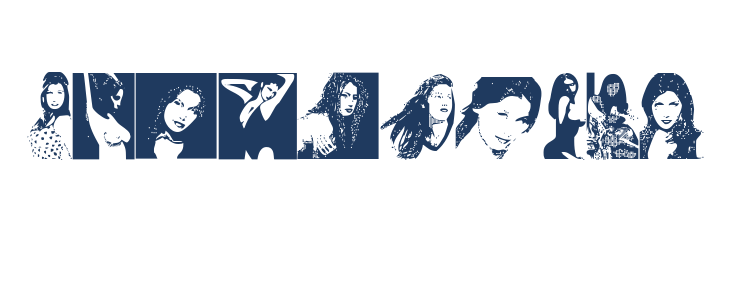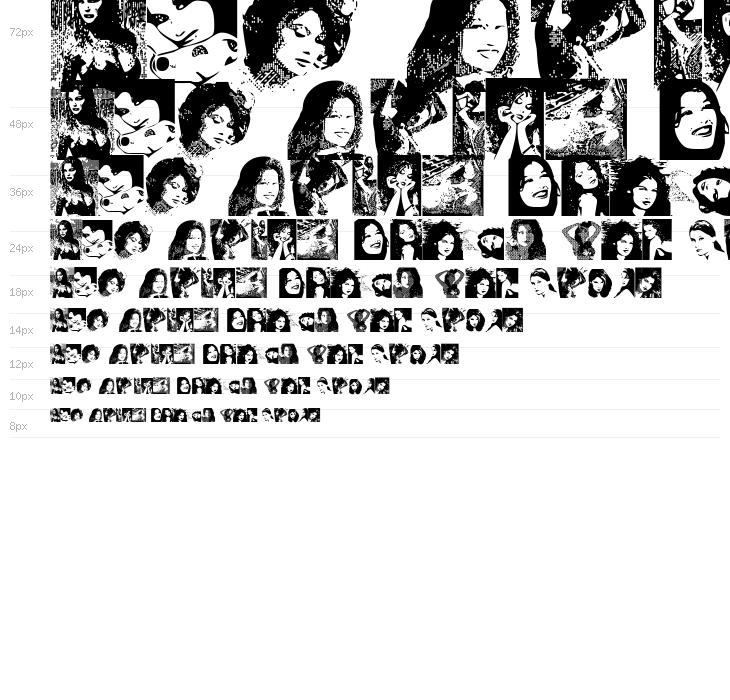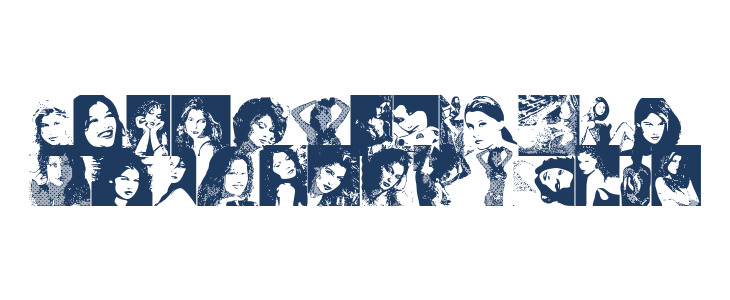
LaetitiaBats2 Font
LaetitiaBats2 Description
This font is a highly decorative and artistic typeface that incorporates photographic images within each character. Each letter is uniquely designed with a black and white photo, creating a striking visual effect. The font is bold and eye-catching, making it suitable for projects that require a strong visual impact. The characters are tightly spaced, enhancing the cohesive look of the text. This font is not suitable for body text due to its complex design but excels in creative and artistic applications.
| Overall Style | Artistic, Decorative |
| Use Case | Headlines, Logos, Artistic projects |
| Proposed Projects | Ideal for posters, album covers, artistic projects, and any design requiring a bold visual statement. |